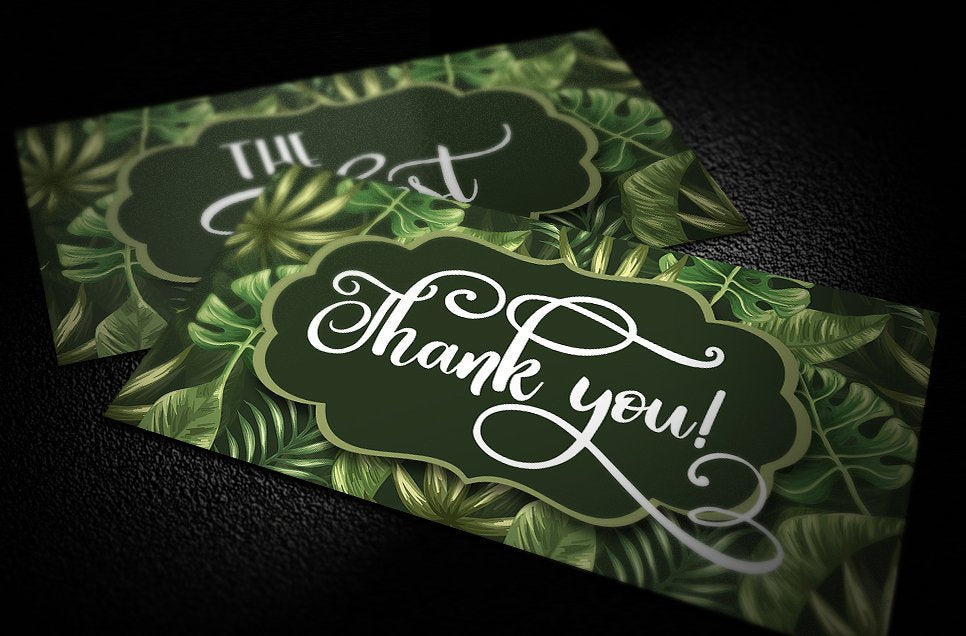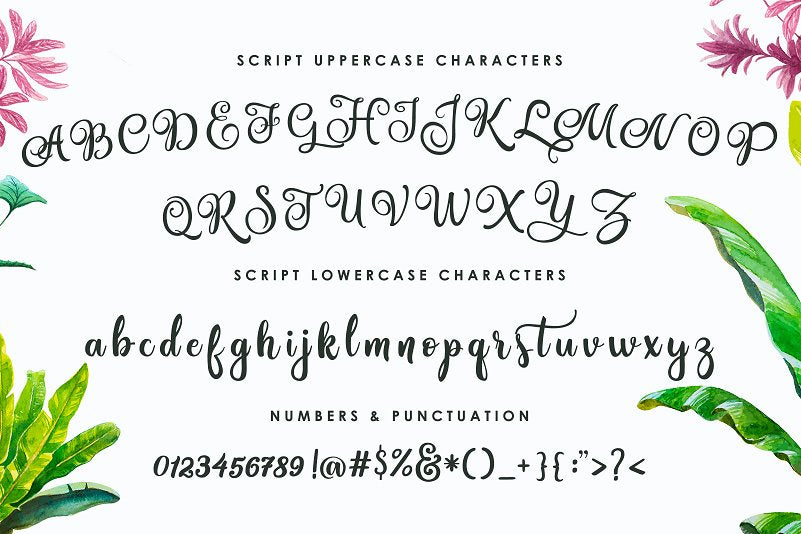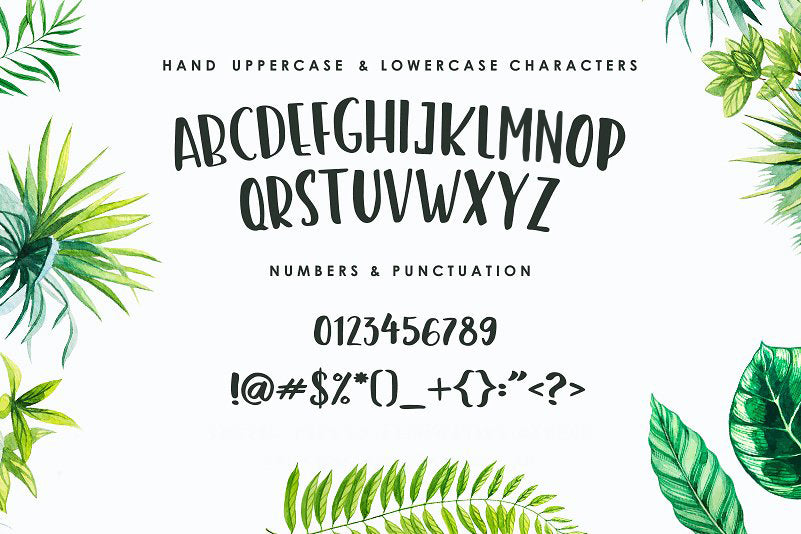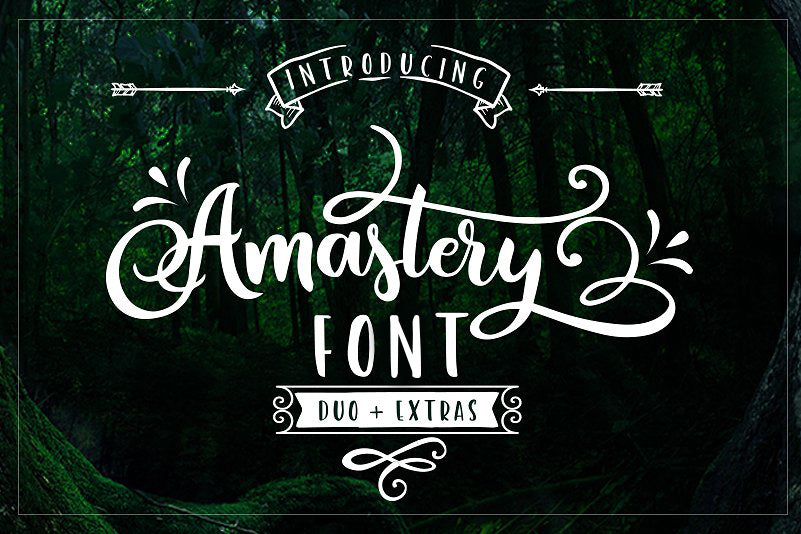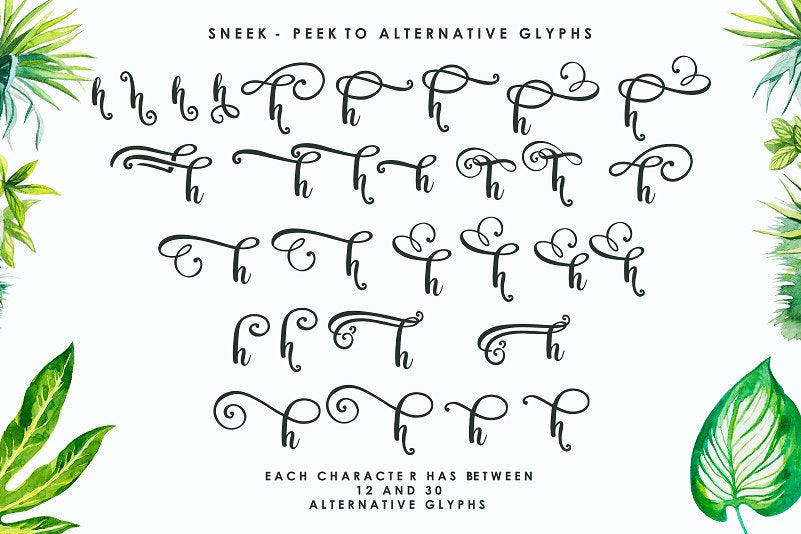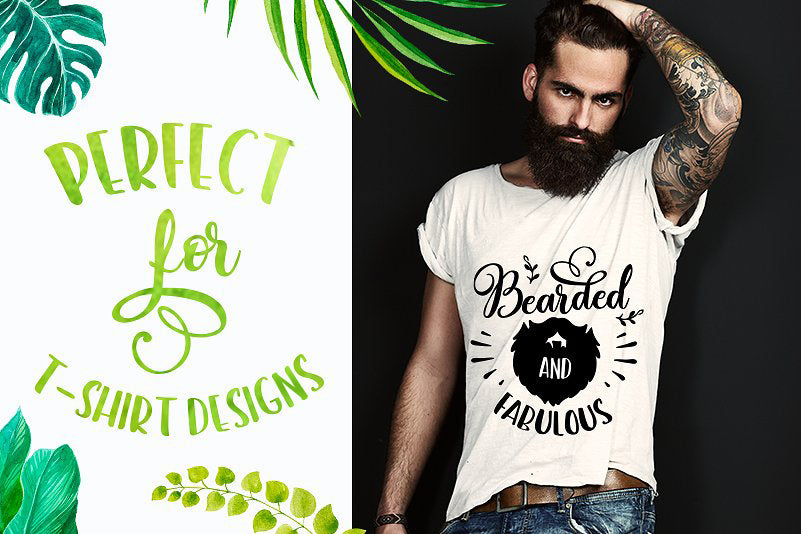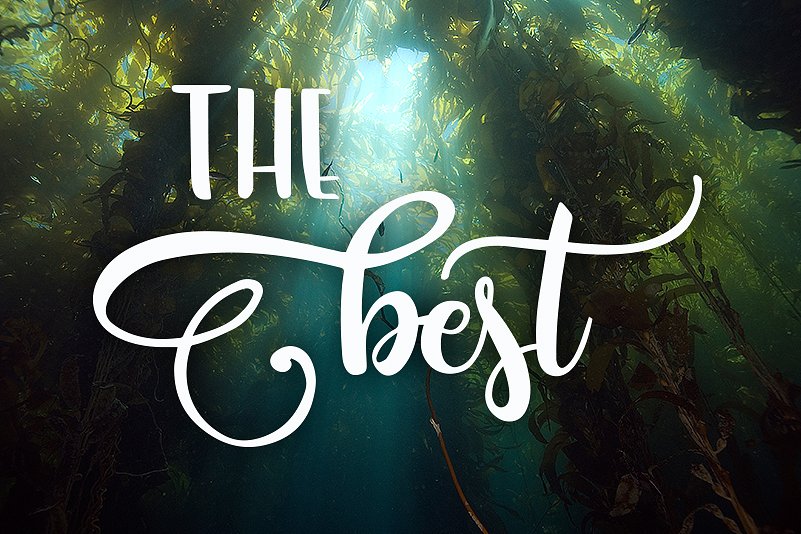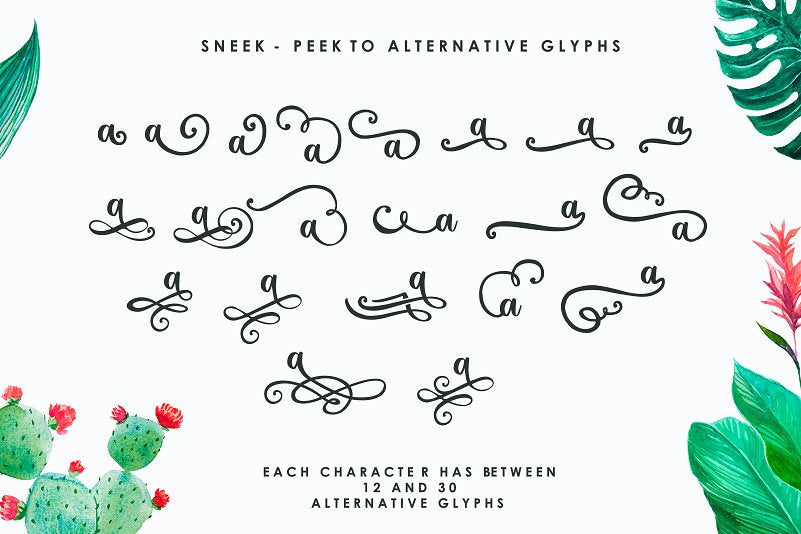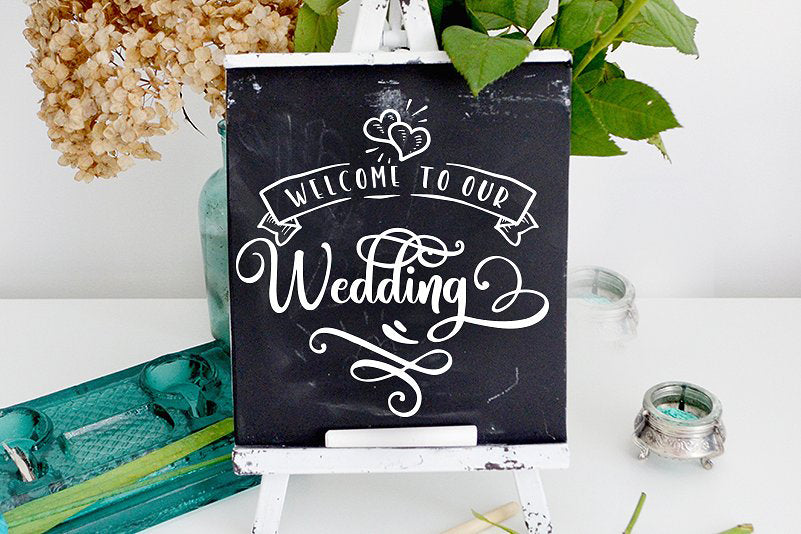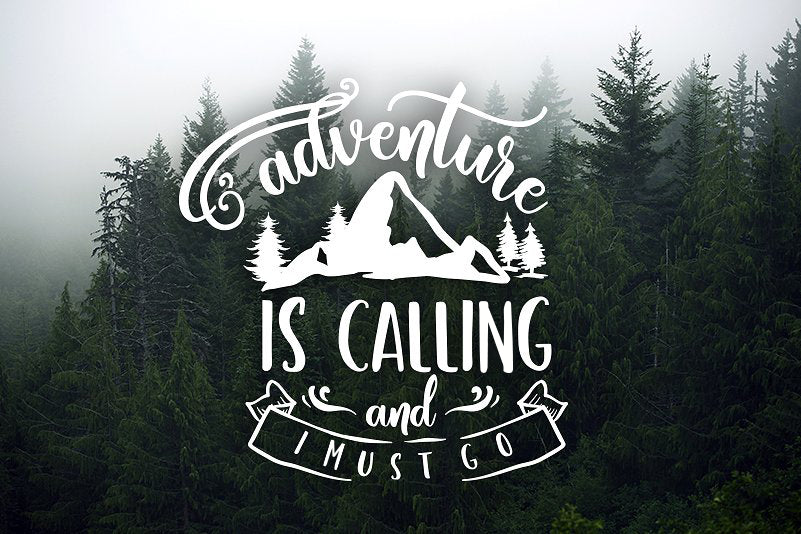
Amastery is a script font with lots of alternative glyphs plus a complementary font and lots of cliparts in font format as well as EPS, PNG and SVG.
The best tool if you want to create t-shirt designs, mug designs, or just play around.